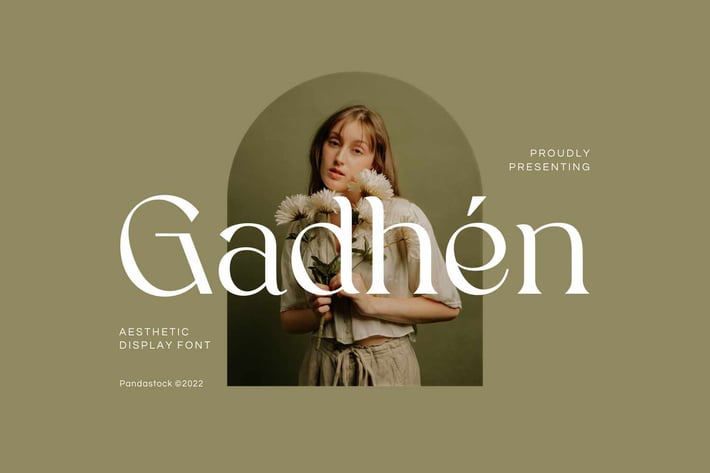
Gadhen - Classy Fonts
Gadhen is a classy font that has smooth curves and a visual style a can embodies charm and elegance in every lettering, making your work look stunning and attractive.
A versatile font that works in both uppercase and lowercase sizes, suitable for a wide variety of projects such as a display font for headings, logo fonts, invitations, branding, book covers, magazine layouts, card, product packaging, product mockup, mugs, posters, labels, editorials, art deco, and any type of advertising purpose.